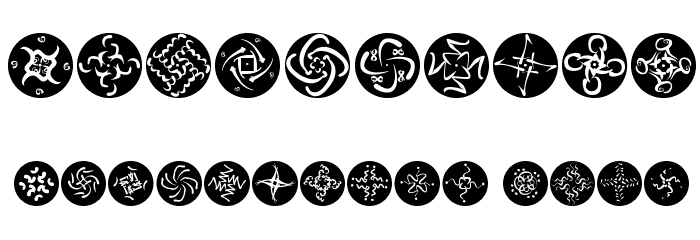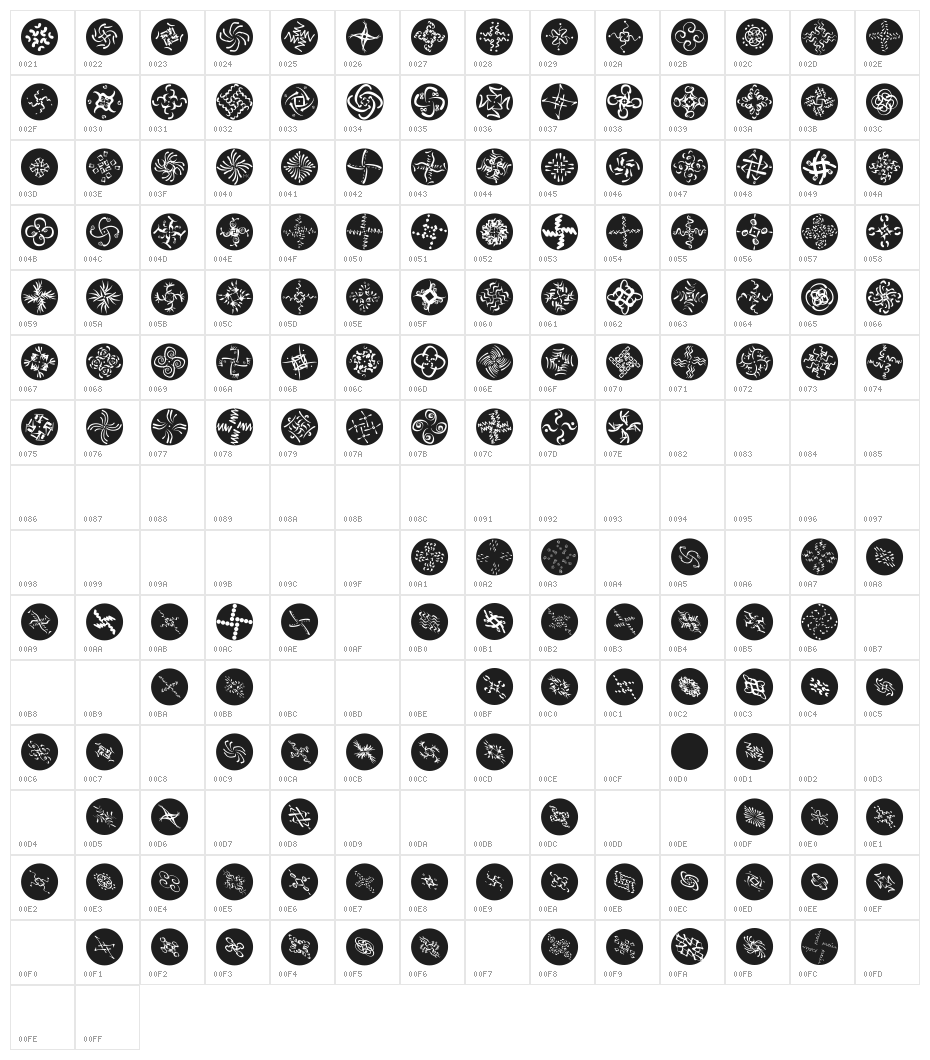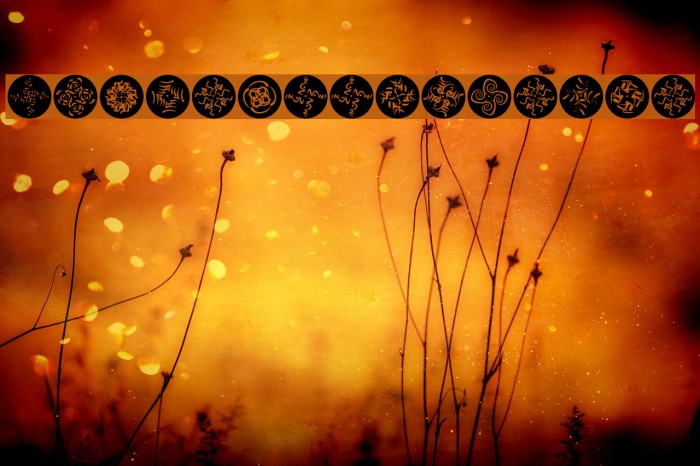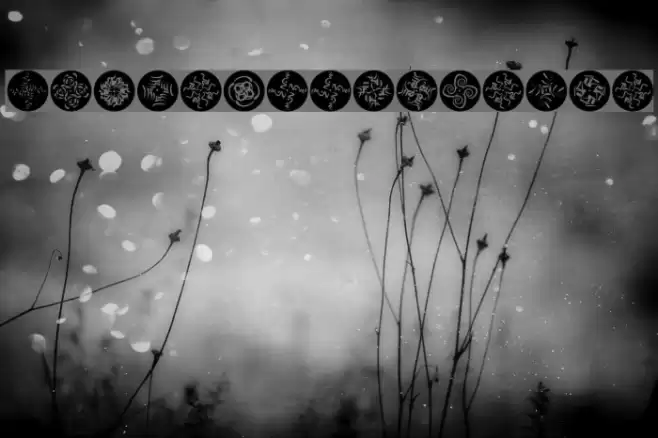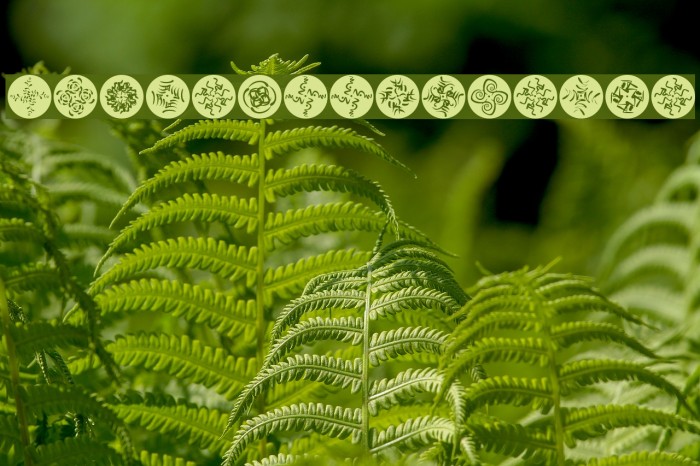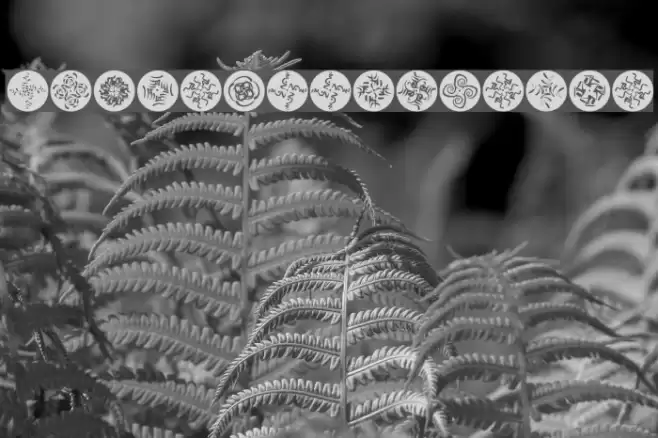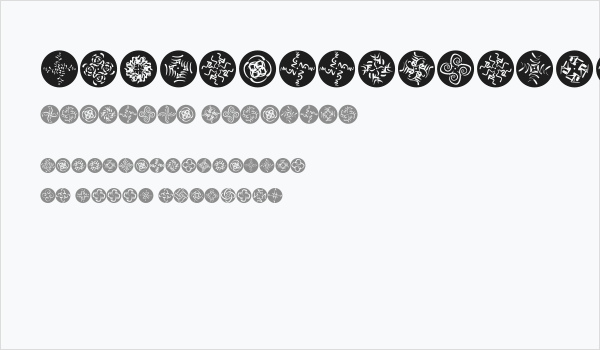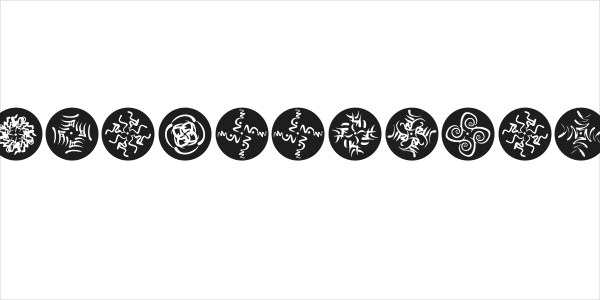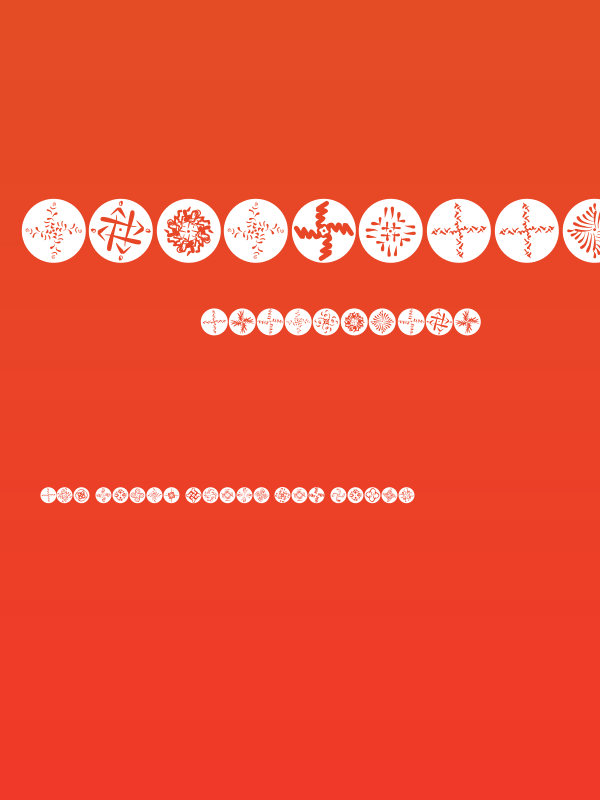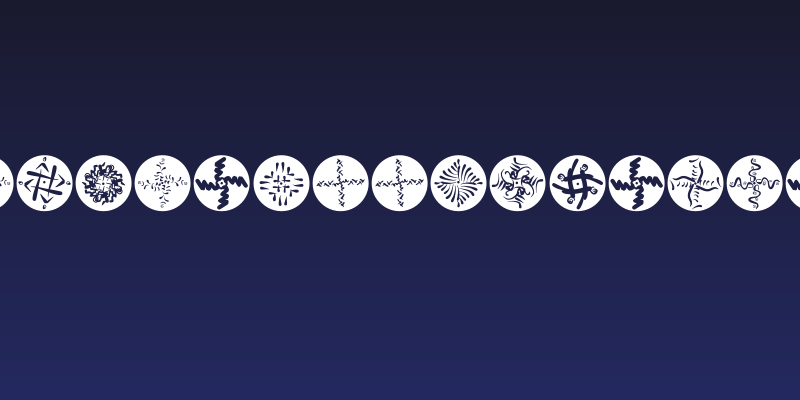
OhRosettaDiscus Font
OhRosettaDiscus Description
A collection of abstract, circular glyphs with intricate, hand-drawn white linework on solid black backgrounds. Each symbol is unique, featuring swirls, geometric shapes, and organic patterns, giving a decorative and mysterious appearance.
| Overall Style | Decorative, Mystical, Abstract |
| Use Case | Logos, Decorative elements, Posters, Artistic projects |
| Proposed Projects | Fantasy games, mystical branding, art projects, album covers, decorative dividers, esoteric publications. |